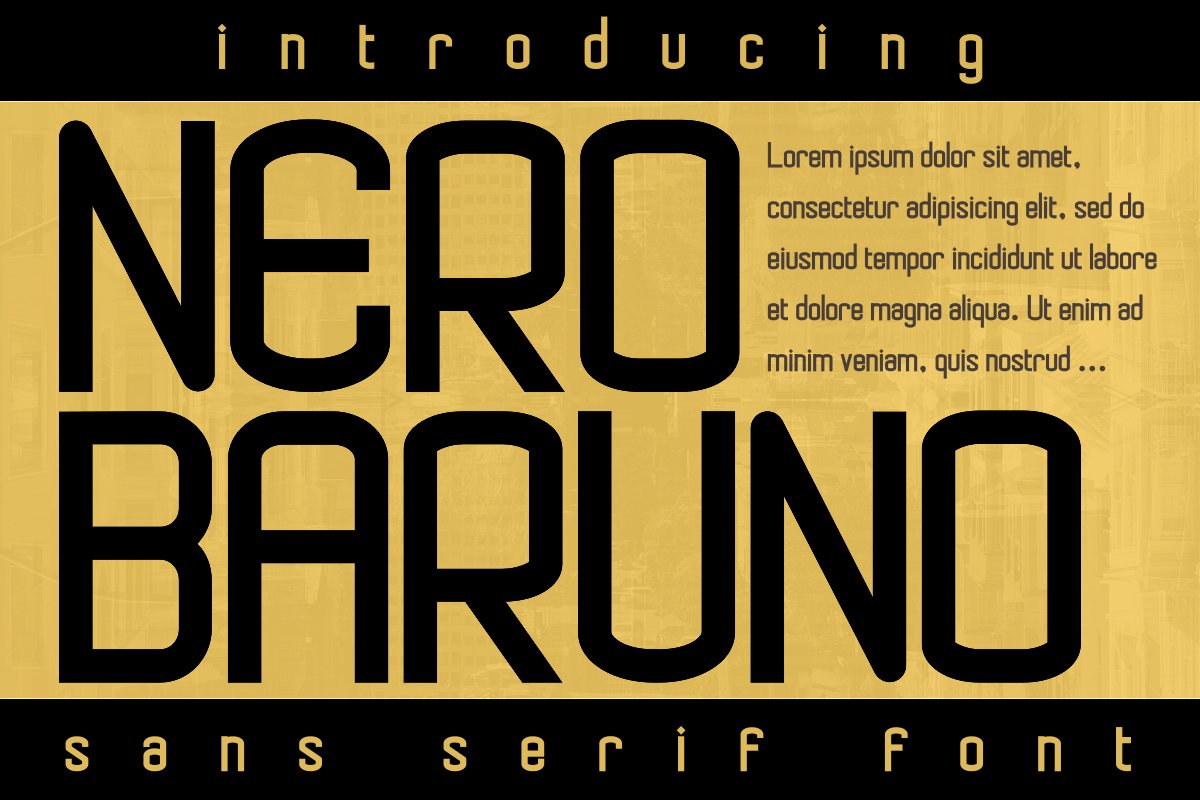
Nero Baruno
Introducing Nero Baruno Sans Serif Font.
Great for book titles, websites, magazines, labels, packaging, stickers, social media, cards, and many more!
Support multilingual.